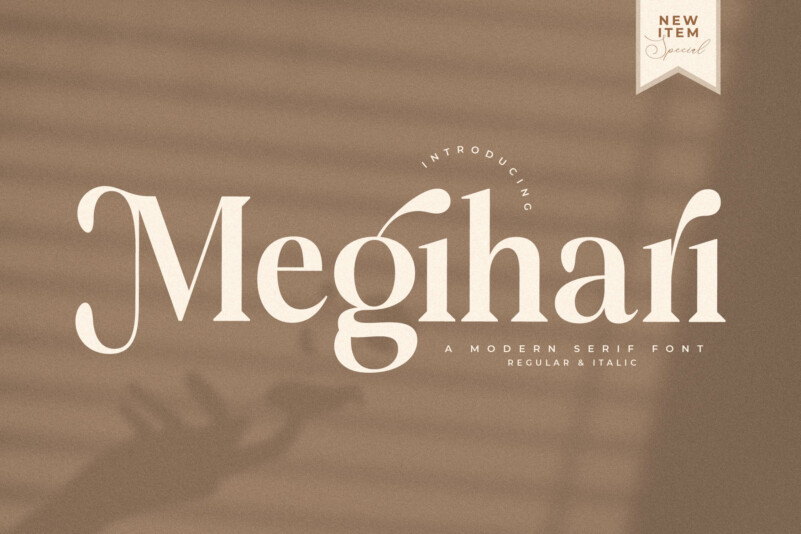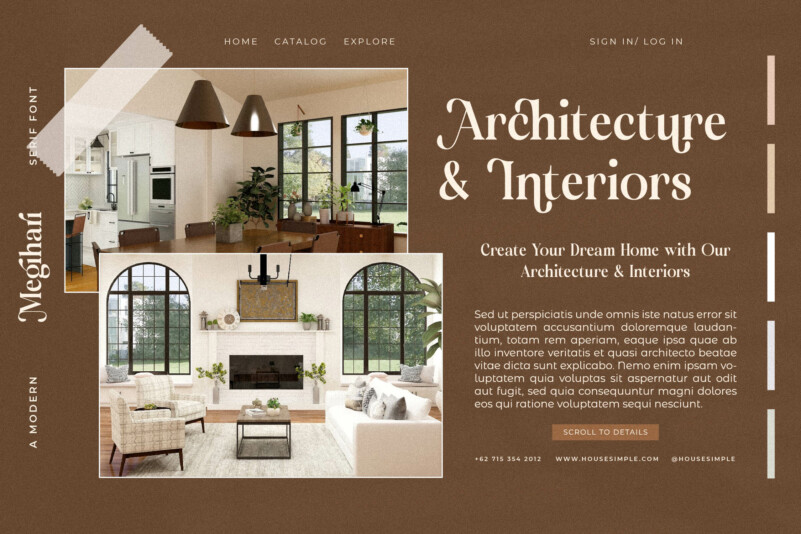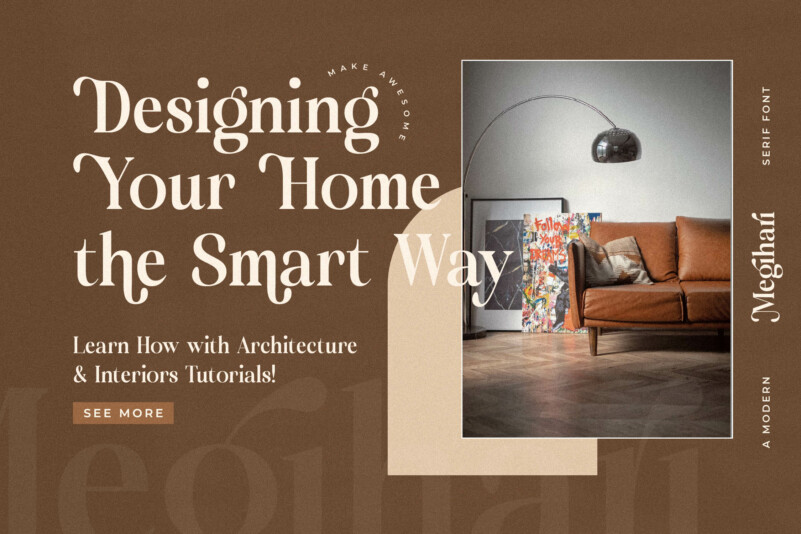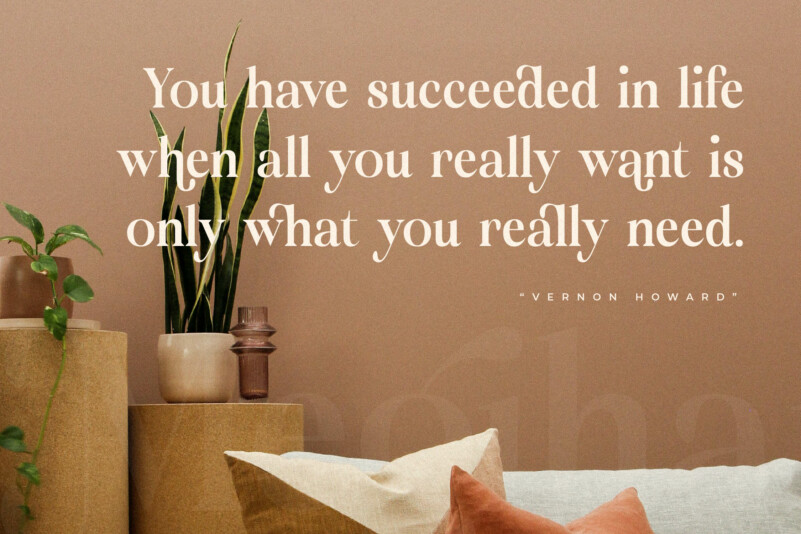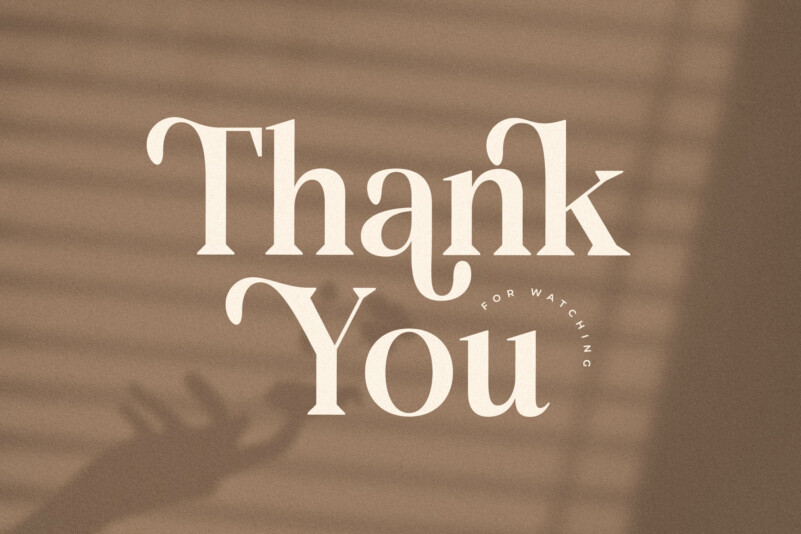
Megihari Font is a serif modern and classic typeface that has own unique style & modern look. This typeface is perfect for an elegant & luxury logo, book or movie title design, fashion brand, magazine, clothes, lettering, quotes, and so much more.